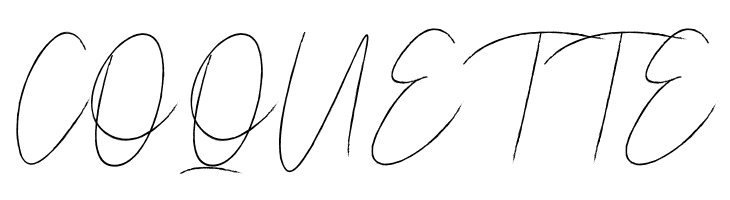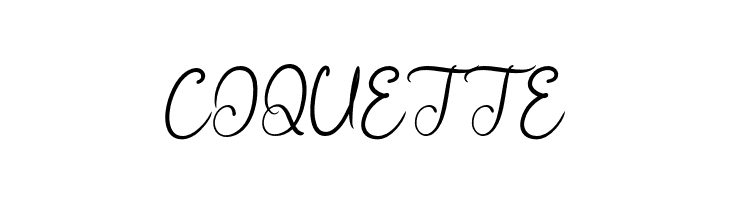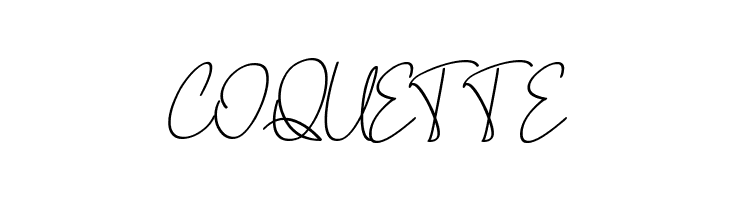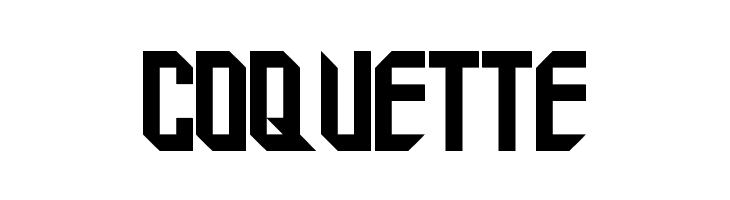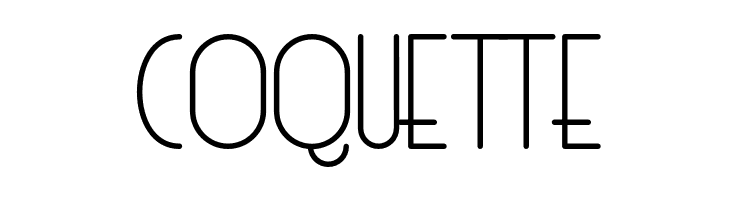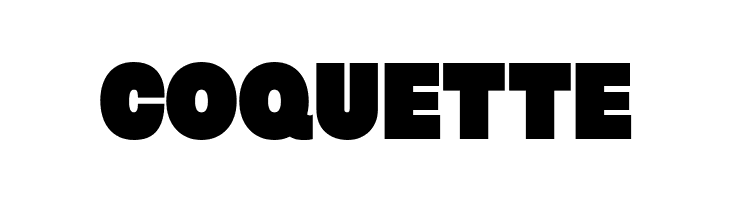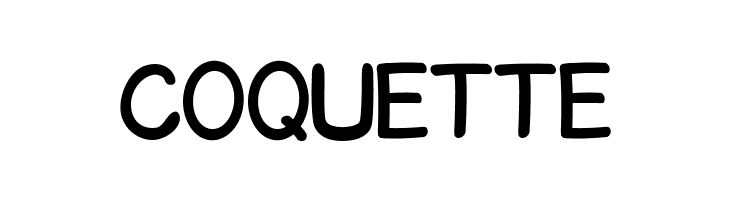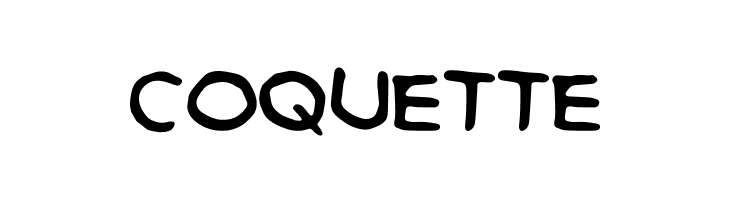
• Baloo Paaji
A playful, rounded font with a bold and friendly appearance.
• Baloo Tamma
A playful, rounded font with bold, uniform strokes and smooth curves.
• Baloo Tammudu
A playful, rounded font with bold, smooth curves and a modern, informal style.
• Baloo Thambi
A bold, rounded font with a playful and friendly style.
• Baloon
A bold, playful font with rounded, slightly condensed characters.
• Balox
A bold, geometric font with sharp angles and a blocky structure.
• Balpaq Normal
A playful, rounded font with smooth curves and a friendly appearance.
• Balsoon Regular
A bold, brush-style font with a dynamic, hand-painted appearance.
• Baltar-Regular
A bold, blocky font with a strong, modern presence.
• Balthasar Regular NBP
• Baltigo Script Regular
A lively and elegant script font with flowing, interconnected letterforms.
• Baltika Demo
A graceful script font with elegant, flowing letters reminiscent of classic calligraphy.
• Baltimare
A fluid and elegant handwritten font with dynamic, flowing letterforms.
• Baltimore
A modern, geometric font with clean lines and a slightly condensed style.
• Baltimore Comic
A playful, comic-style font with bold, rounded strokes and a hand-drawn appearance.
• BaltimoreSmallCap
A modern, geometric font with rounded edges and consistent stroke widths.
• Balune
A playful and bold script font with a handwritten feel.
• Bambang
A dynamic handwritten font with fluid, continuous strokes and a casual elegance.
• Bambang Signature vol 2.0
A fluid, handwritten script font with elegant, flowing lines.
• Bambino_PersonalUseOnly
A playful, slanted handwritten font with medium contrast and a dynamic style.
• Bambiraptor
A playful, bold outline font with a three-dimensional appearance.